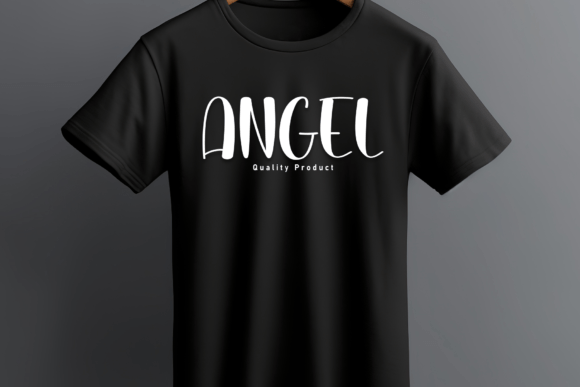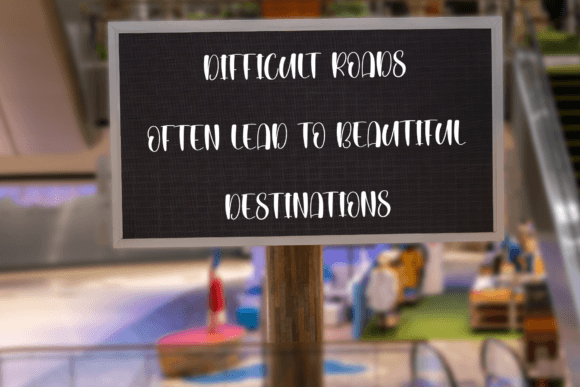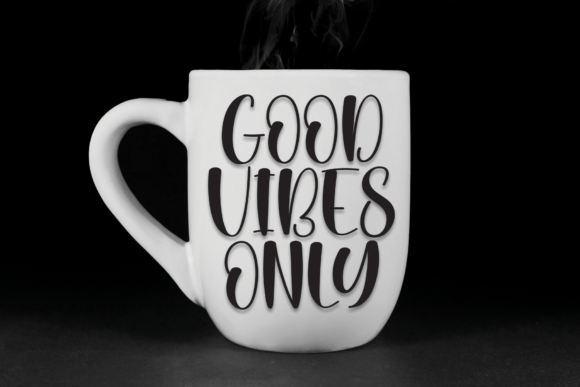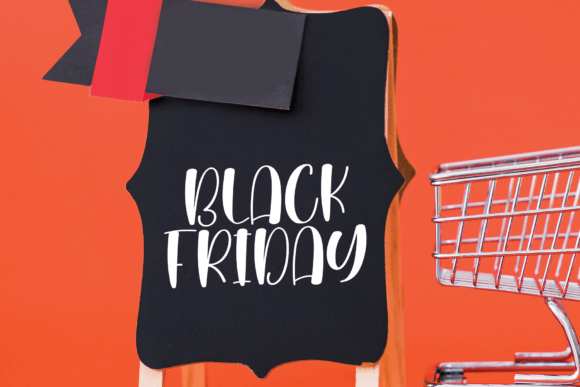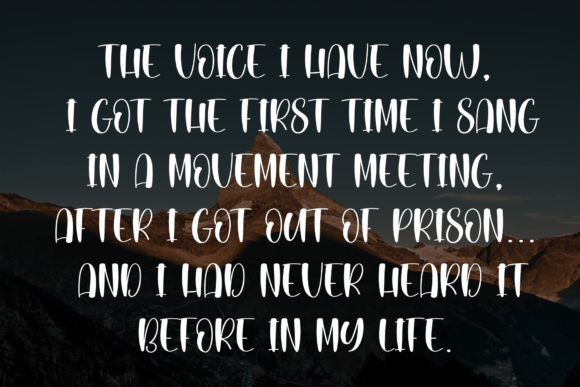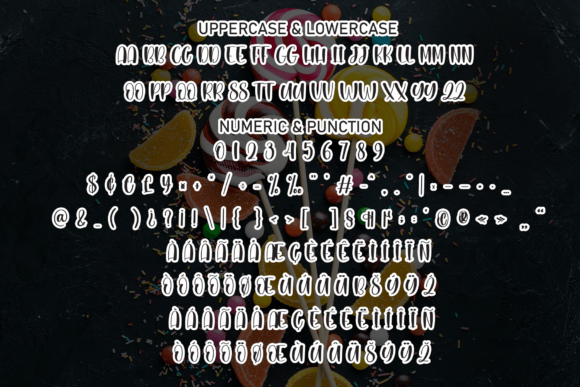
Introduction to Crush Candy Font
Have you ever stumbled upon a font that instantly brightens up your design and makes you want to create something new? That’s exactly what happened to me when I discovered the delightful Crush Candy Font. Its bold, rounded letters and bubbly aesthetic had me hooked from the very first glance. I immediately thought of all the fun projects I could use it for – from kid-friendly designs to party invitations that scream excitement.
As a designer, you’re always on the lookout for that special something to elevate your creative project and make it stand out. That’s where high-quality fonts like the Crush Candy Font come in – offering a perfect blend of style and versatility. With its transparent background and free download option, this design resource is a valuable addition to any designer’s toolkit, allowing you to bring your ideas to life with ease and precision.
Key Features of Crush Candy Font
- Unique, playful design with transparent background for flexible use
- Perfect for adding a touch of whimsy to digital designs, from logos to social media graphics
Honest Review: Crush Candy Font
I recently had the opportunity to work with the Crush Candy Font, and I must say it’s a delightful addition to any design project. This font is a high-quality resource that can add a touch of sweetness to your creative endeavors.
What works well with the Crush Candy Font is its versatility. It comes with a transparent background, making it easy to layer and combine with other design elements. The font itself is quite playful and can be used in a variety of creative projects, from branding and packaging to digital graphics and social media posts.
Here are some of the key features that I appreciate about the Crush Candy Font:
- High-quality design that’s perfect for a variety of creative projects
- Transparent background for easy layering and combination with other elements
While the Crush Candy Font is a great resource, there are a few limitations to consider:
- Only available in a single weight, which may limit its use in more complex design projects
- May not be suitable for more formal or professional projects
Overall, I’m impressed with the Crush Candy Font. It’s a fun and playful resource that’s perfect for designers who want to add a touch of whimsy to their creative projects. Whether you’re working on a personal project or a client project, this font is sure to bring a smile to your face.